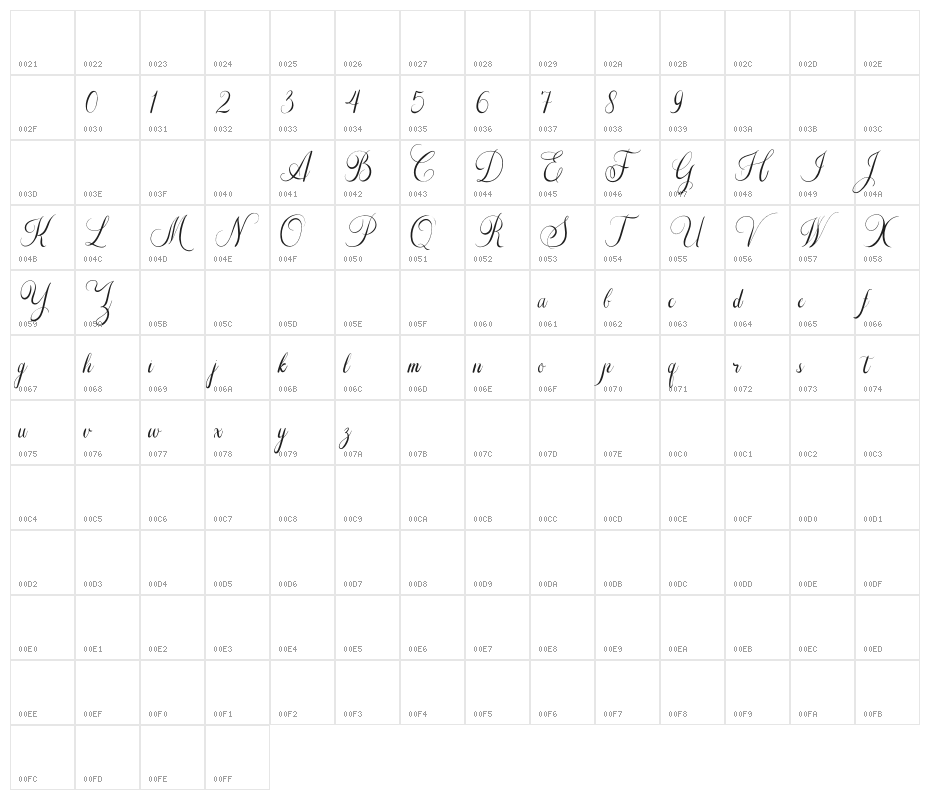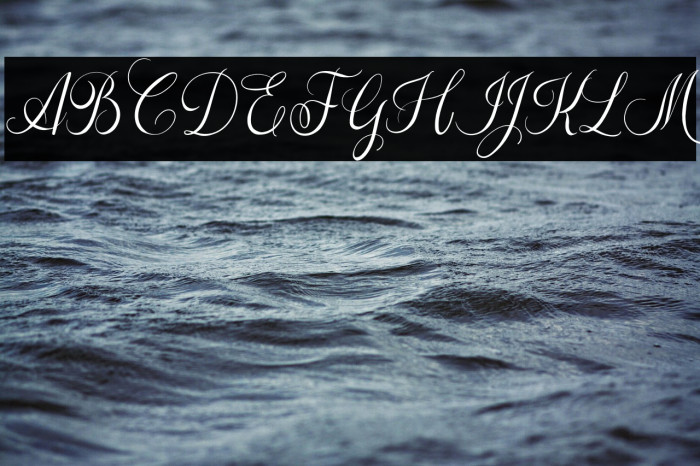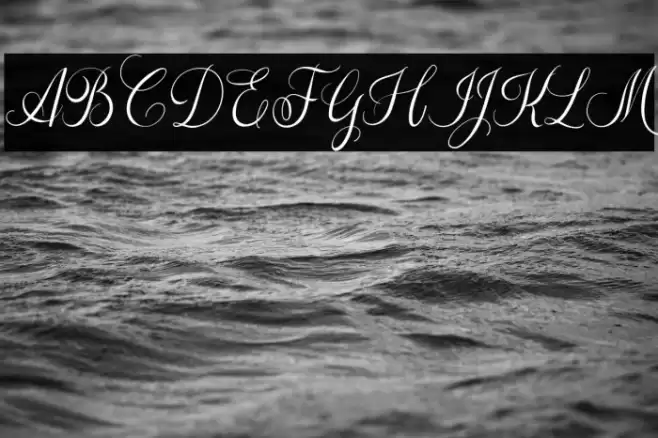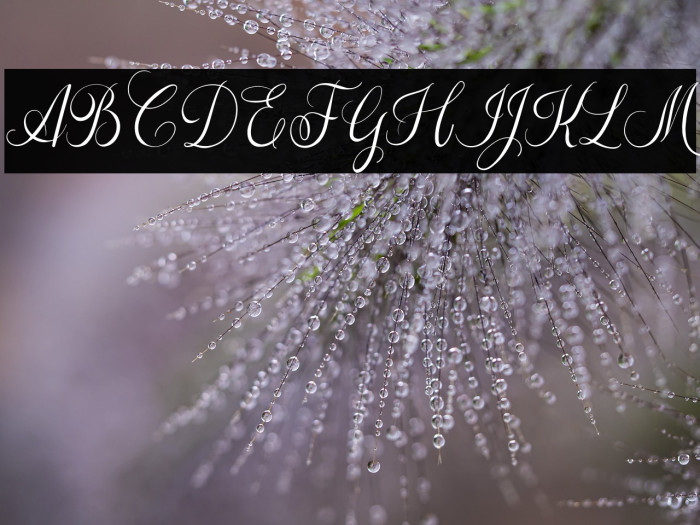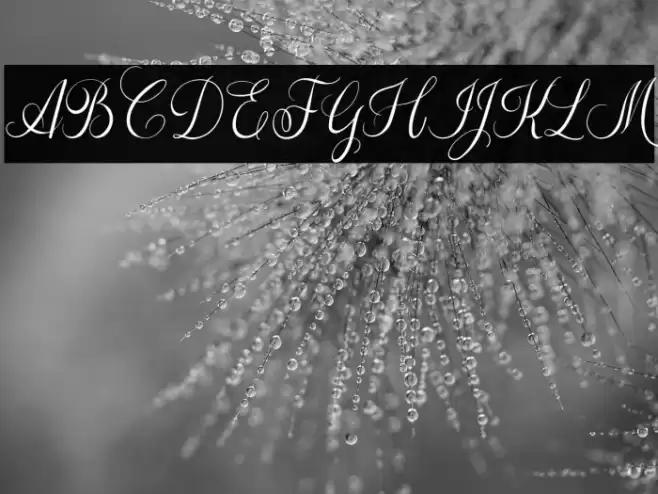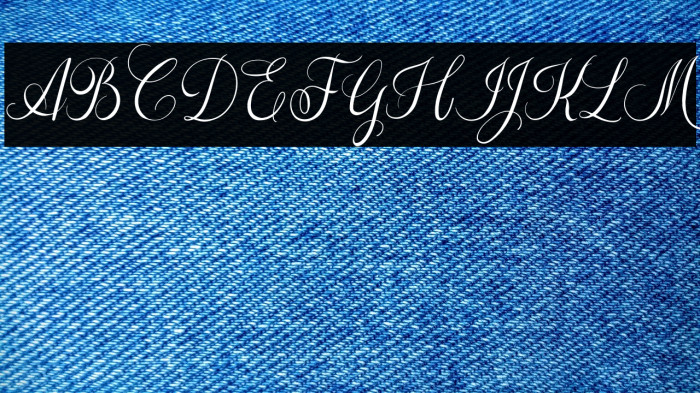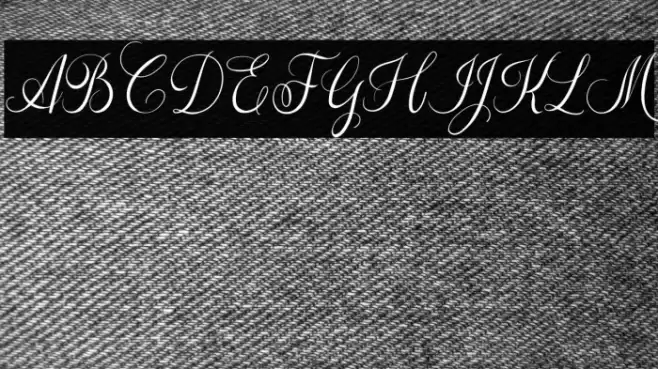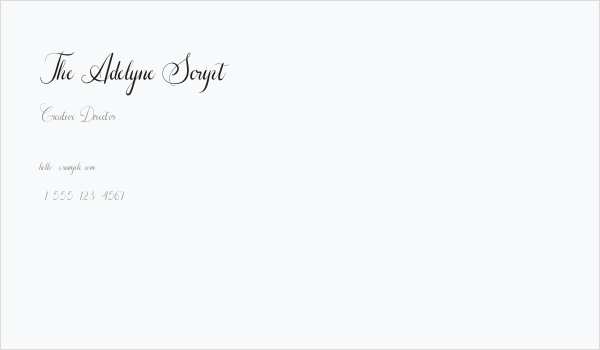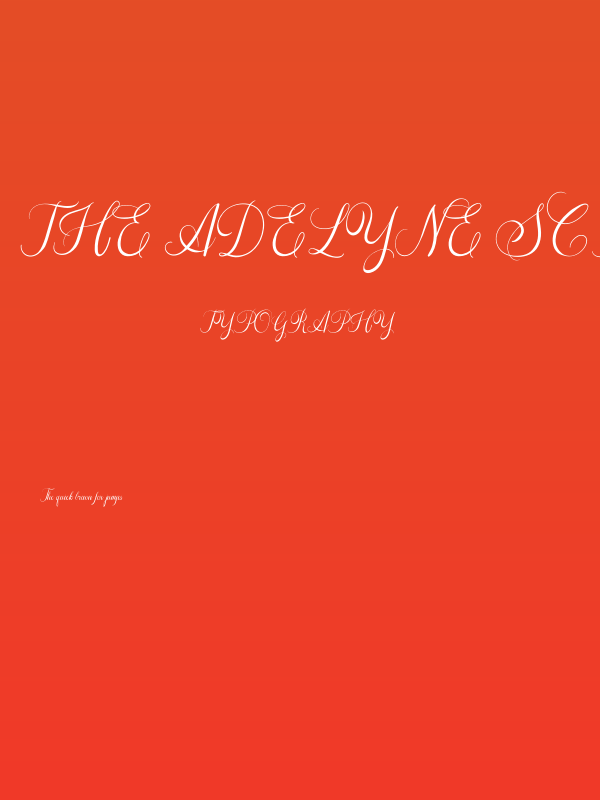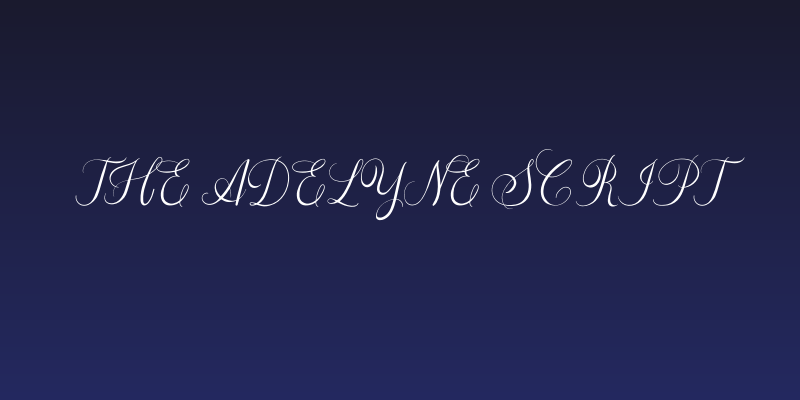
The Adelyne Script Font
The Adelyne Script Description
This elegant script font features flowing, cursive letters with a refined and sophisticated appearance. The uppercase characters are adorned with graceful loops and swashes, giving them a decorative flair. The lowercase letters maintain a smooth and connected style, enhancing the font's fluidity. The numerals are designed with a similar elegance, incorporating subtle curves and flourishes. This font exudes a sense of luxury and is perfect for projects that require a touch of class and sophistication.
| Proposed Projects | Ideal for wedding invitations, elegant branding, luxury product packaging, and sophisticated event signage. |